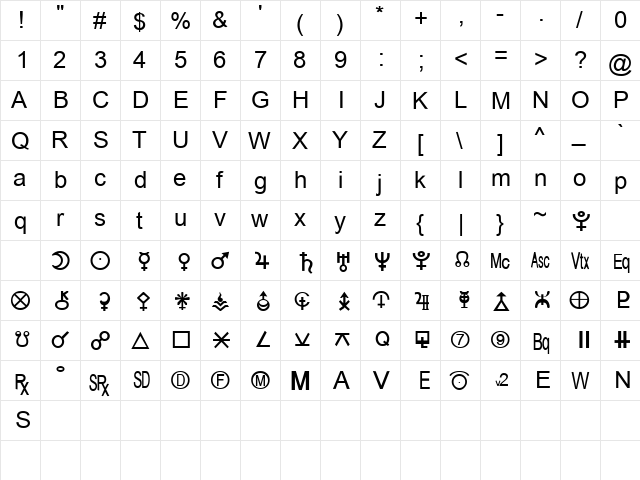
AstroMtx Regular
Design Context for AstroMtx Typeface
AstroMtx offers clean, dependable letterforms without strong stylistic allegiance, making it a practical choice for designers who need flexibility.